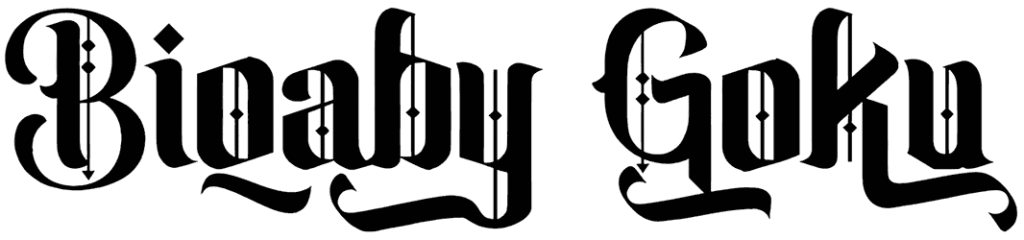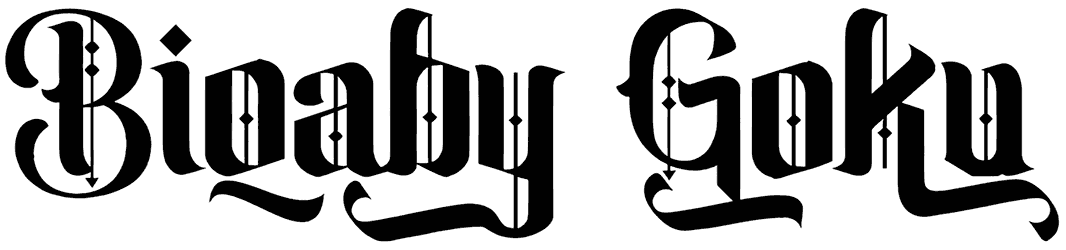
Biqaby Goku Font
Okay, guys, it’s time to use a Gothic font and draw all attention. Biqaby Goku appears in decorated characters and can be an amazing host for many projects, such as posters, movie posters, novels, and so forth. Download it without delay and bring a tough grunge vibe to your text design.